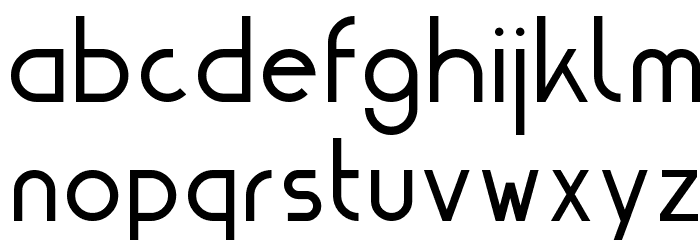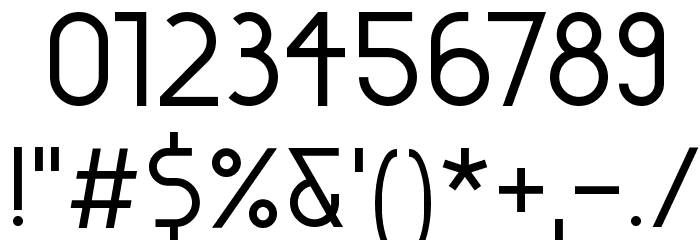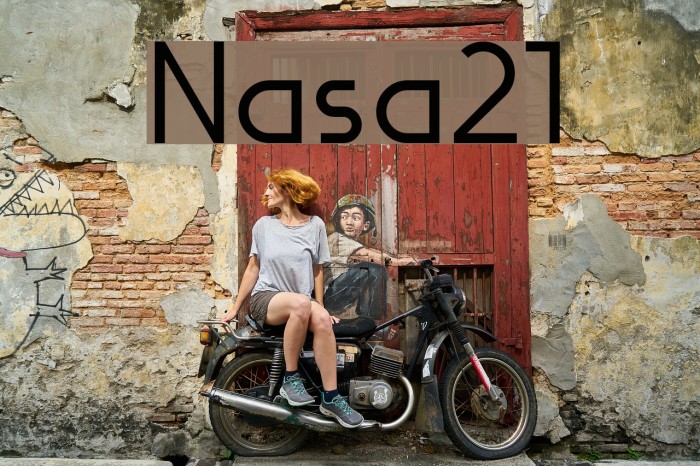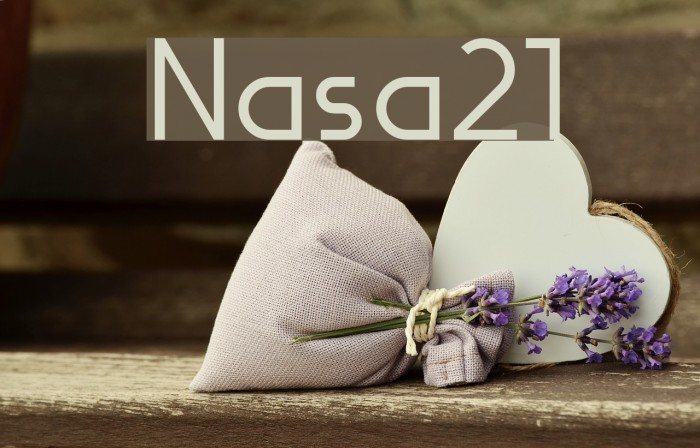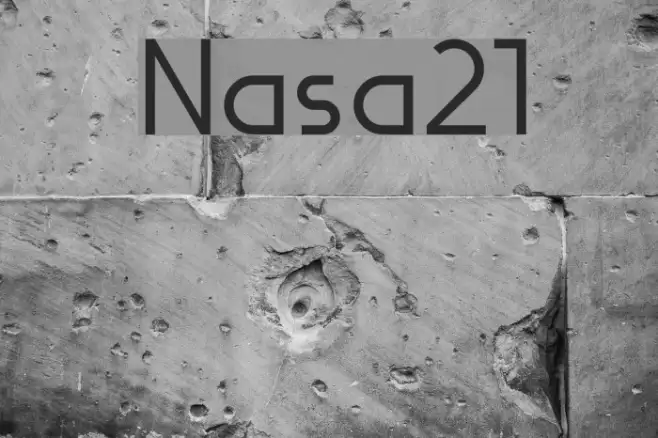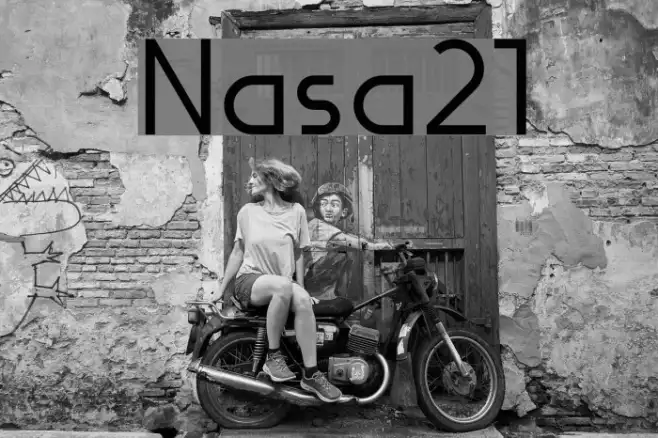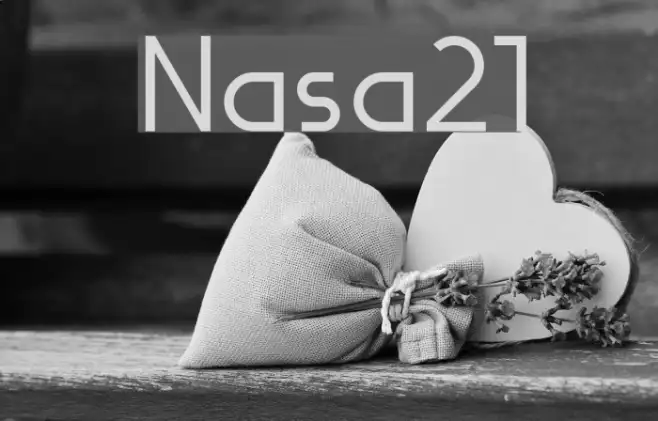
Nasa21 Font
This font features a clean and modern sans-serif design with geometric influences. The characters are well-balanced with a consistent stroke width, giving it a sleek and contemporary appearance. The uppercase letters are bold and assertive, while the lowercase letters maintain a friendly and approachable feel. The numerals are clear and legible, making them suitable for various applications. Special characters are included, providing versatility for different uses. The overall design is minimalistic, emphasizing simplicity and readability.
A modern, geometric sans-serif font with a clean and minimalistic design.
- Proposed Projects: Ideal for branding, digital interfaces, advertising, and editorial design due to its modern and clean aesthetic.